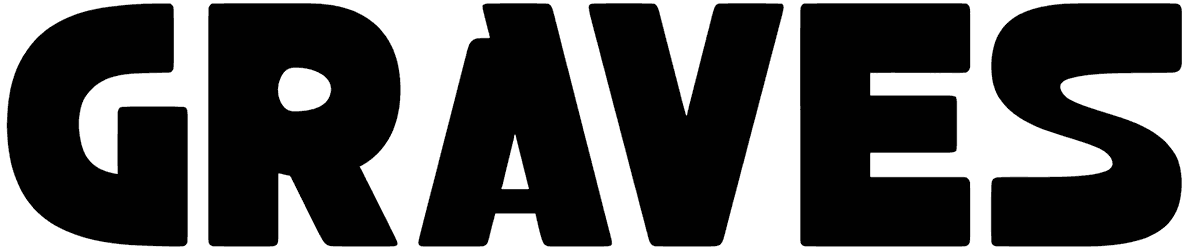
Graves Font
The bold and chunky characters of Graves can be very well used in a huge set of graphic content like magazines, movie brochures, wood engravings, e-books, or presentations. Due to its great legibility, this sans serif fo…
The bold and chunky characters of Graves can be very well used in a huge set of graphic content like magazines, movie brochures, wood engravings, e-books, or presentations. Due to its great legibility, this sans serif font can increase the visibility of your work and add a sense of modernity, dynamism, or jauntiness.